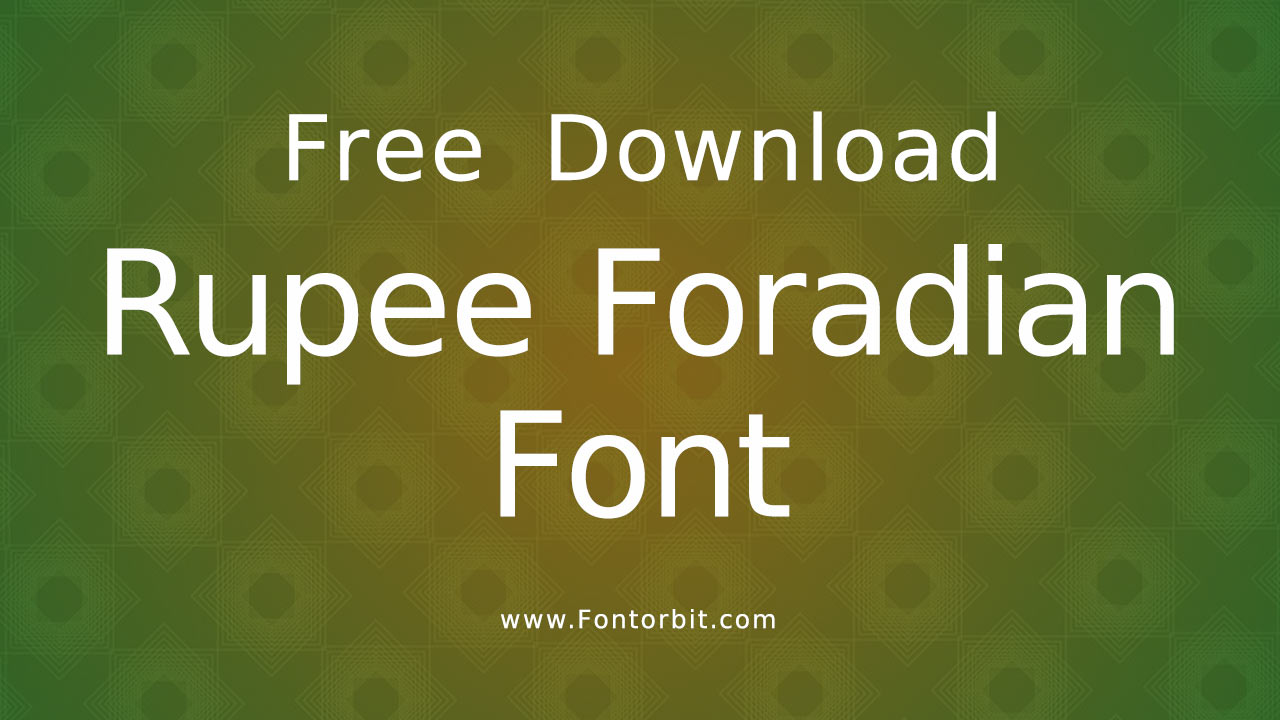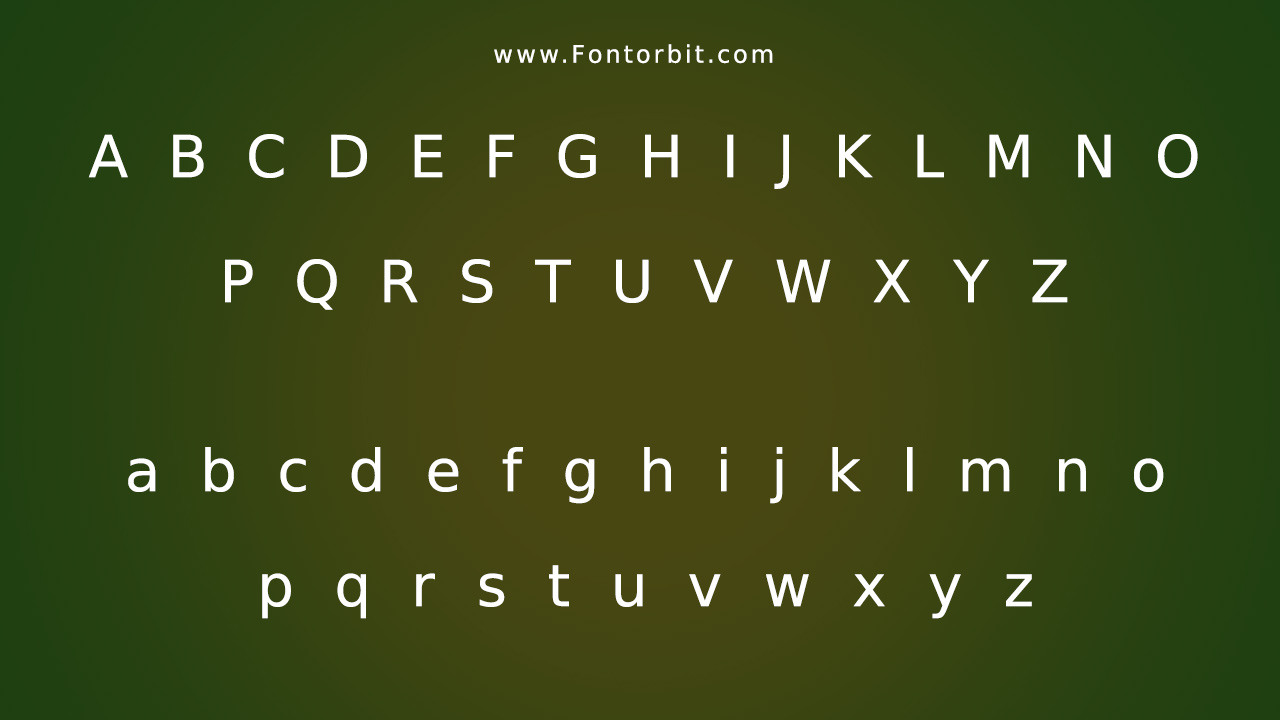
Rupee Foradian is a unique sans-serif font designed by Bitstream Inc, created to address the need for incorporating the Indian Rupee (₹) symbol into digital documents.
Known for its simple and clean design, it has been widely adopted for both personal and professional uses. With its 1000 units per em and advanced typography features, Rupee Foradian offers a functional yet stylish finish to any project, capturing the attention of those seeking a seamless integration of currency symbols in their text.
The Rupee Foradian Font Family
Rupee Foradian Regular
The Rupee Foradian font family includes a single style that embodies a modern sans-serif design. It provides excellent readability, which makes it suitable for various uses like creating logos, social media graphics, and official documents.
It supports numerous characters and symbols, allowing for broad application across different design projects. The font is set to be of a medium weight and includes a straightforward, geometric structure that is perfect for both digital and print media.
Notable Uses: Rupee Foradian Font
- logos for official papers
- social media posts
- official graphics
- websites
Rupee Foradian is often utilized in projects where incorporating the Indian Rupee symbol is essential. Its minimalistic yet elegant design pairs well with other fonts, allowing it to blend seamlessly into various graphic and text compositions. Ideal for both professional and creative projects, this font adds a touch of modernity to any design.
Final Words
Rupee Foradian is an excellent choice for designers and content creators who need to integrate the Indian Rupee symbol into their work efficiently. Its clean lines and versatility make it suitable for various uses, from creating business logos to designing eye-catching social media graphics.
Rupee Foradian is available in a single, medium weight.
Combine Rupee Foradian with serif fonts like Times New Roman and use structured layouts to give a clean, professional appearance to your designs.
Use Rupee Foradian for headings, official documents, or web content where the Indian Rupee symbol is needed. Pair it with other sans-serif fonts for a sleek, contemporary look.
9.What Are The Best Pairings For Rupee Foradian Font?
Pair Rupee Foradian with sans-serifs like Helvetica or classic serifs like Georgia for a balanced and sophisticated design.